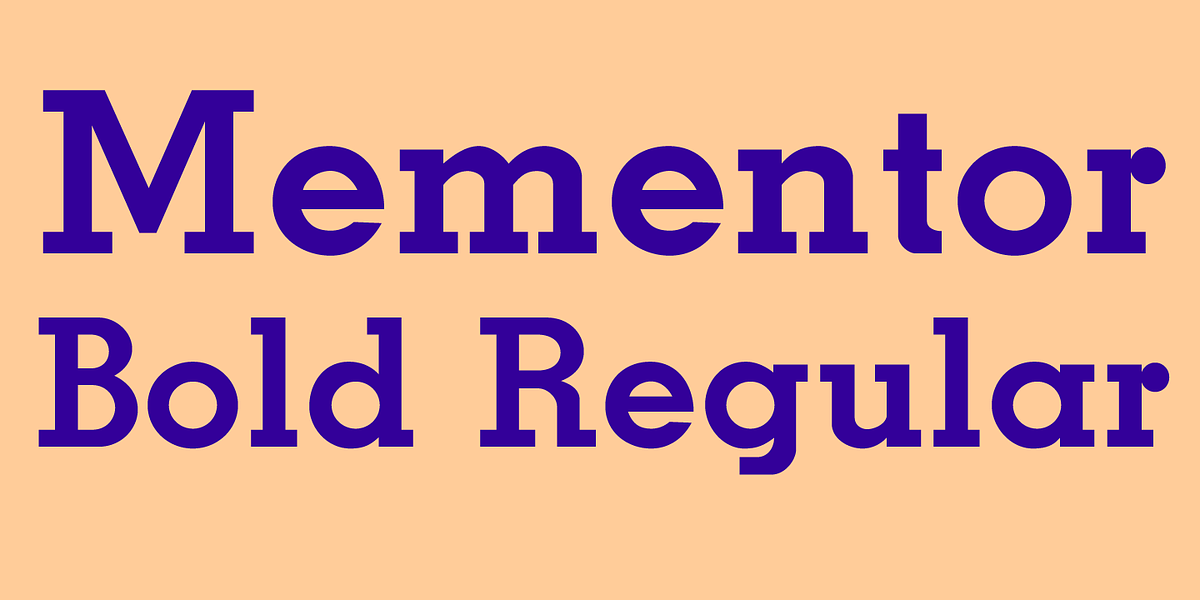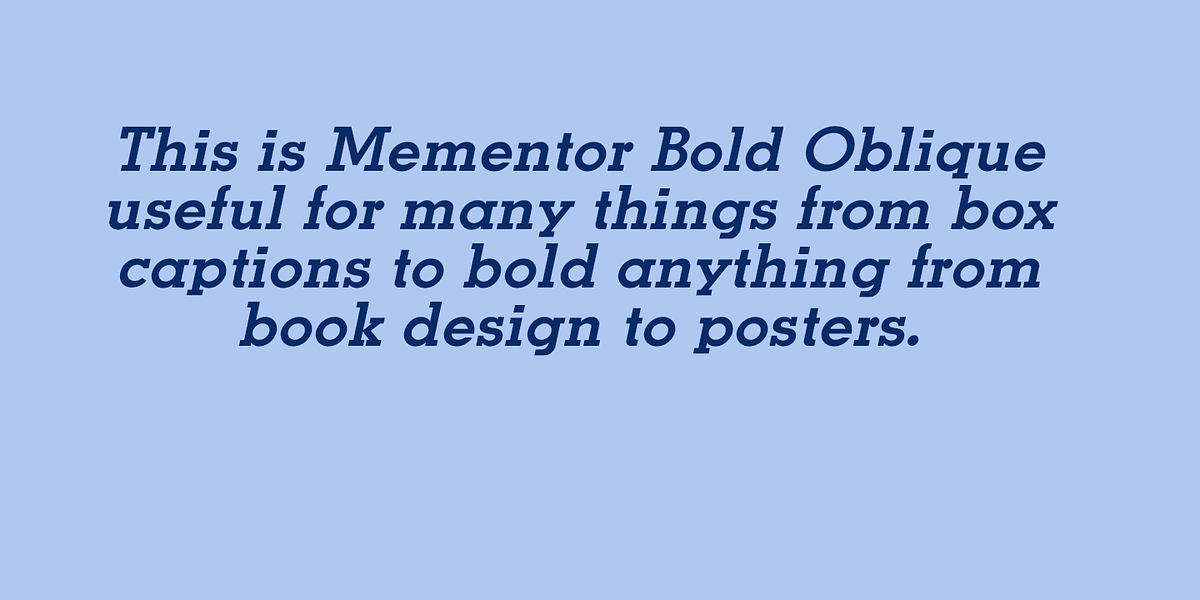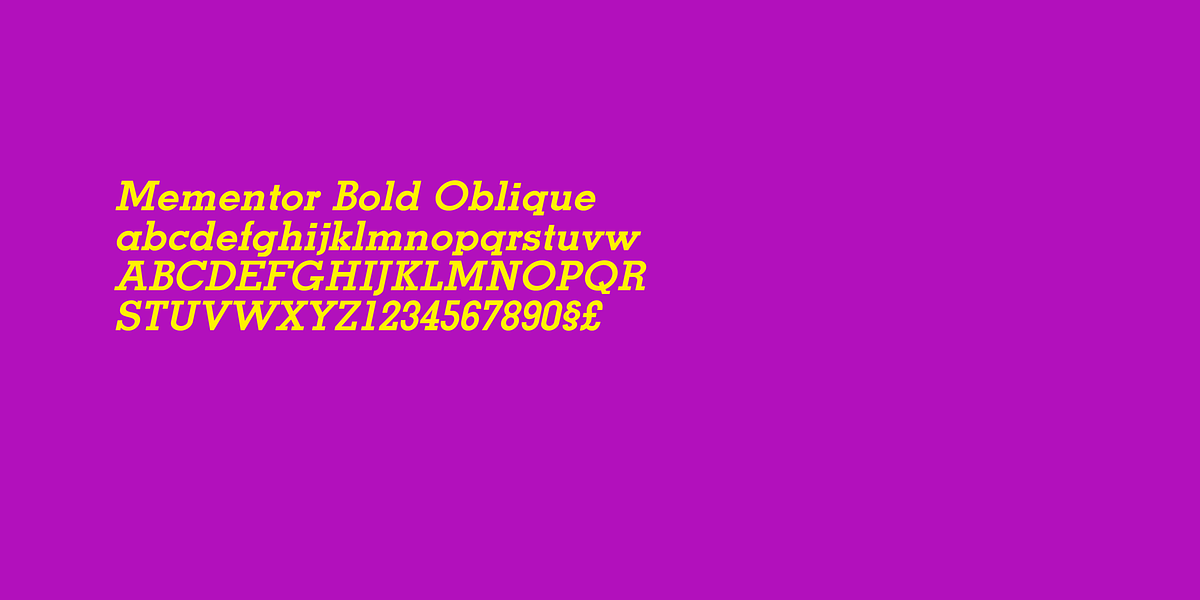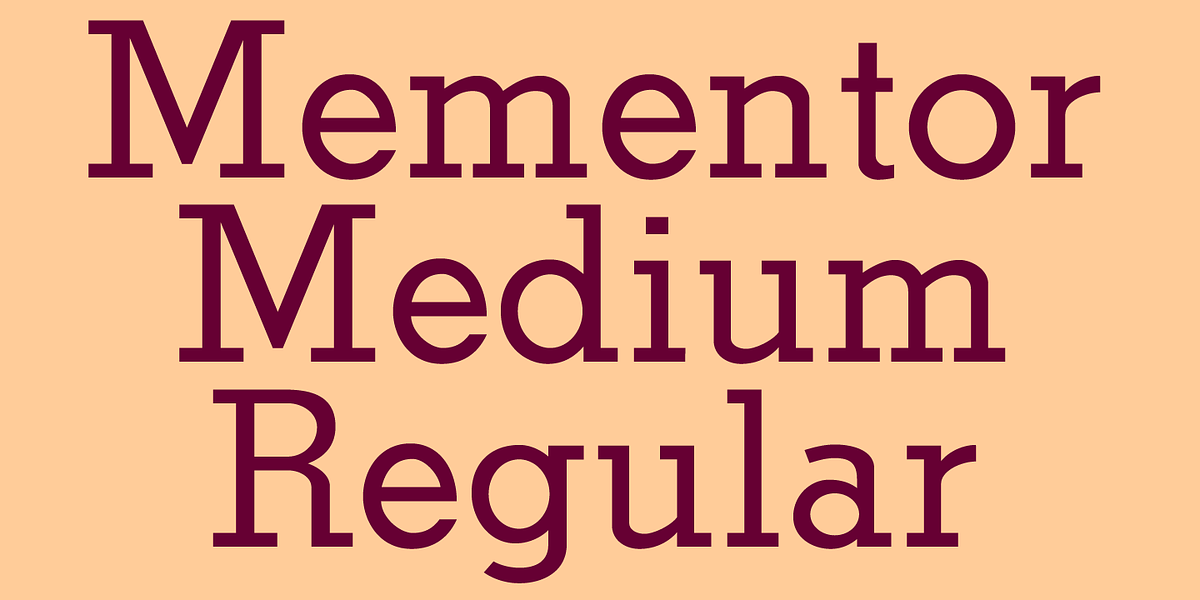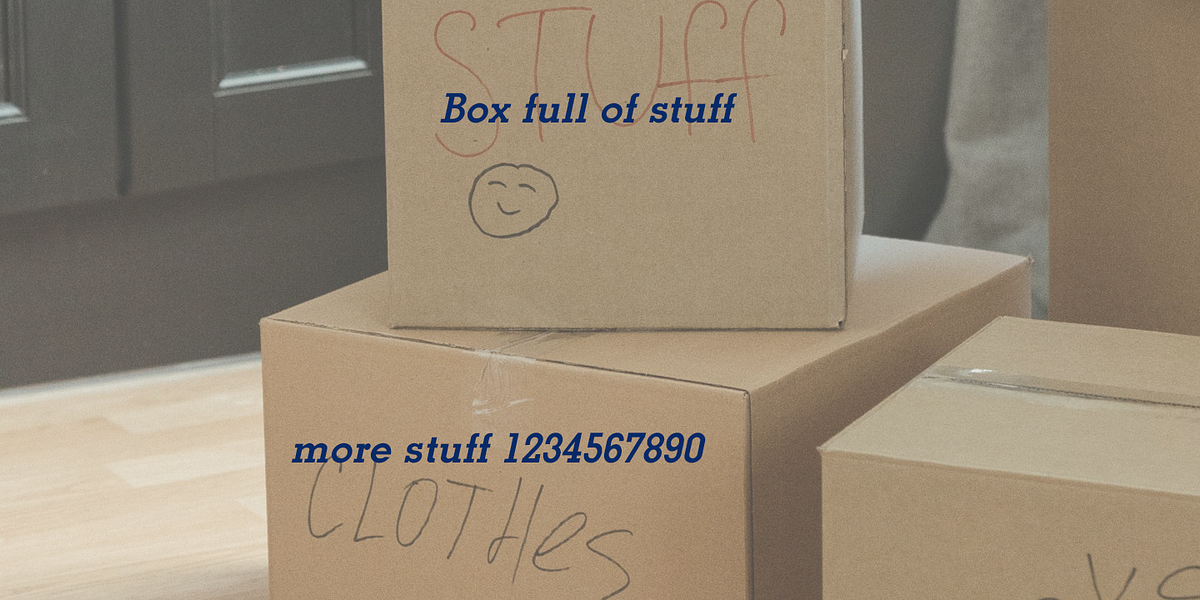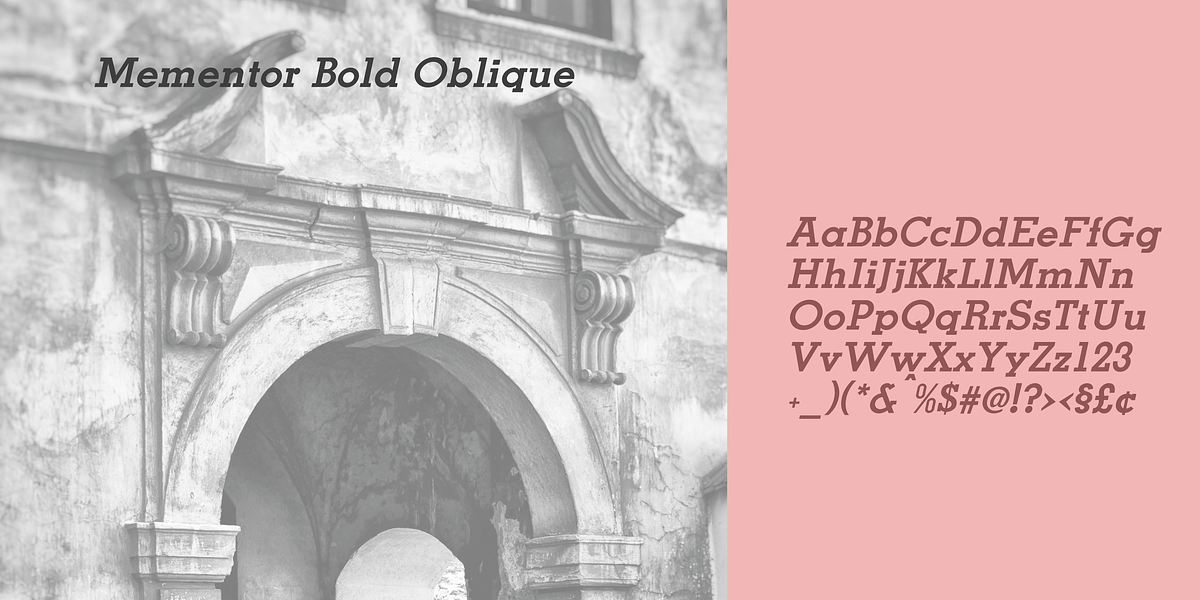
Mementor
This heavy minimal slab serif font features a distinctive flat design with rounded shapes in letters like 'A'. Its versatility makes it suitable for both display purposes, such as headlines, and body text paragraphs.